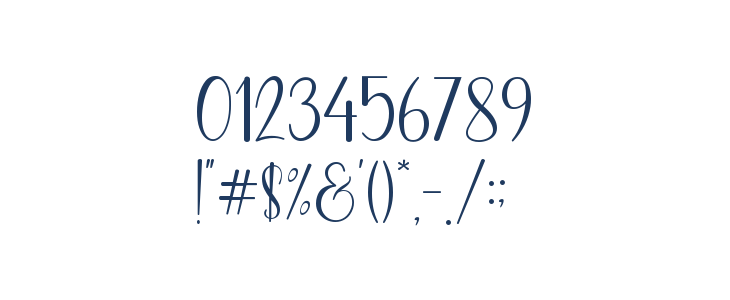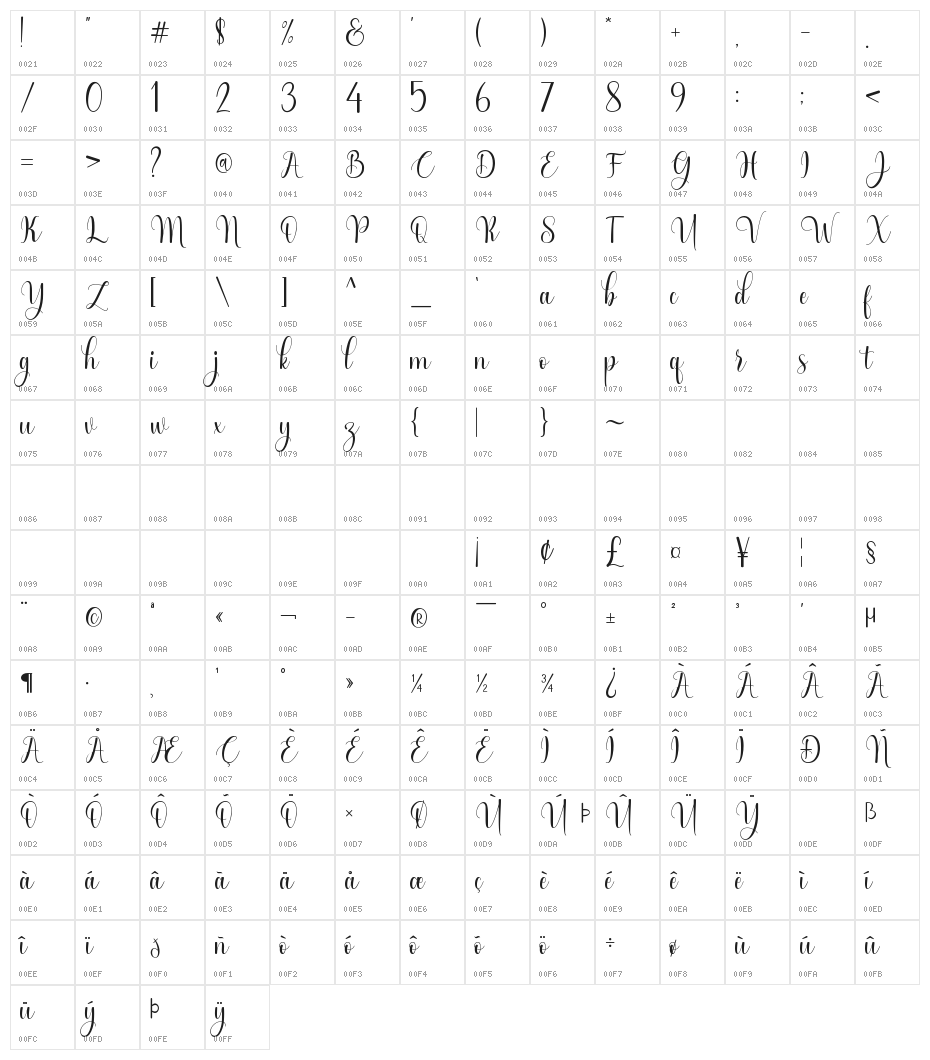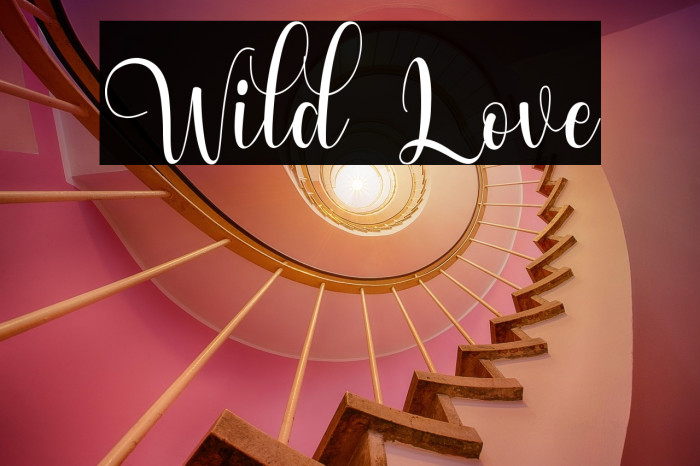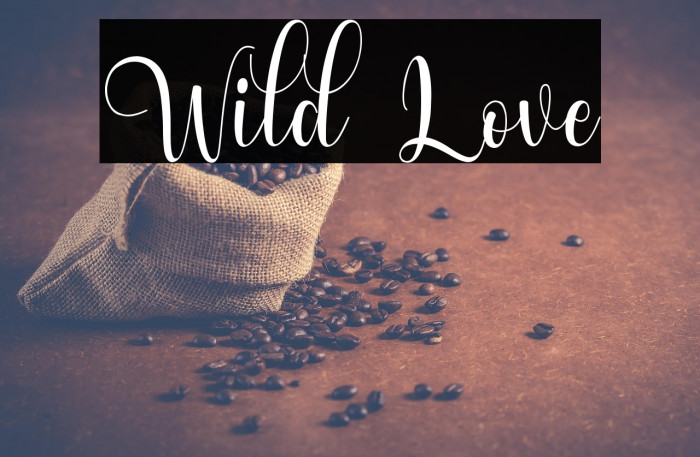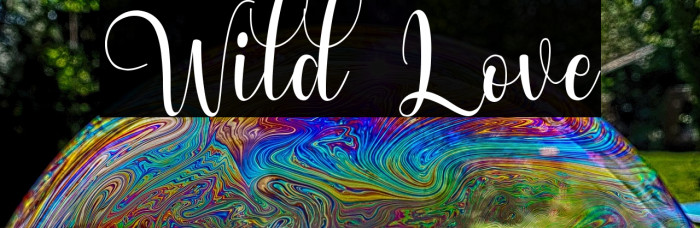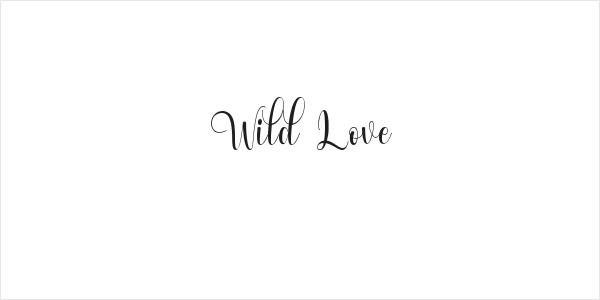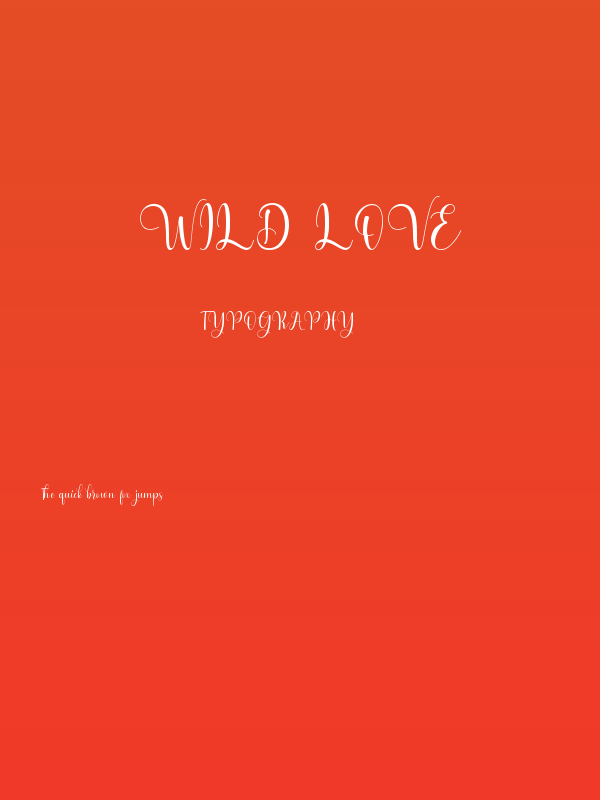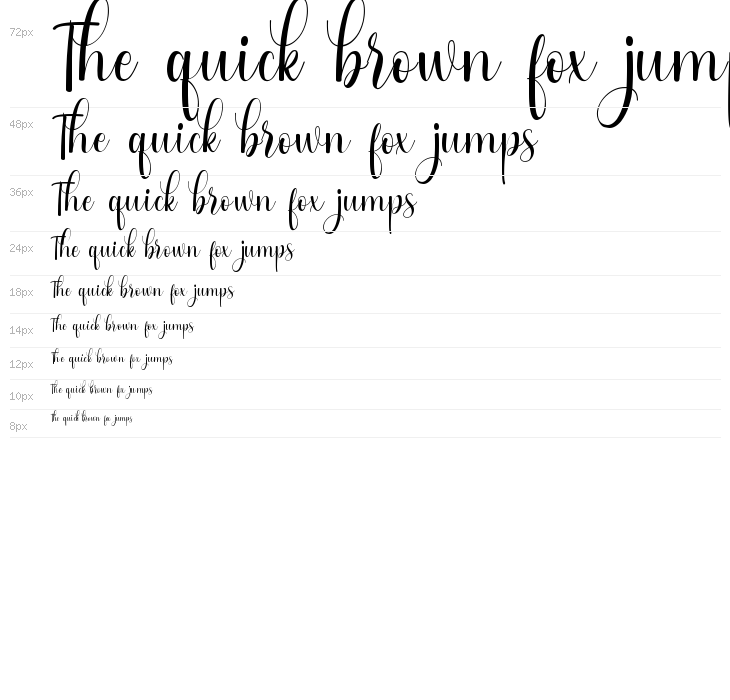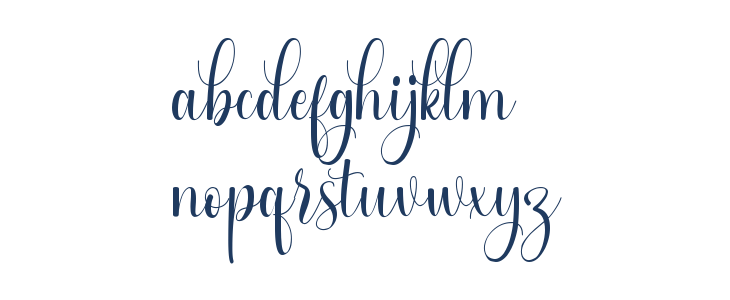
Wild Love Font
Wild Love Description
This font features an elegant and flowing script style, characterized by its graceful curves and loops. The uppercase letters are tall and slender, with a distinct flair that adds a touch of sophistication. The lowercase letters maintain a consistent flow, creating a harmonious balance between each character. The numerals are clear and stylish, complementing the overall aesthetic. Special characters are thoughtfully designed to match the script's elegance, making this font versatile for various creative applications.
| Proposed Projects | Ideal for wedding invitations, branding, greeting cards, and elegant packaging designs. |